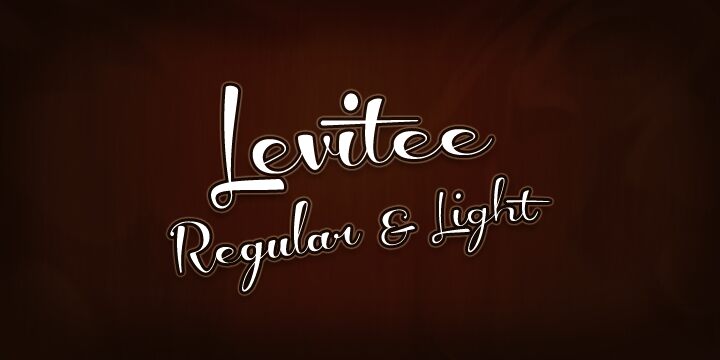
Levitee by Måns Grebäck is a free calligraphic script with dramatic changes from broad, ink-heavy curves to extremely fine hairlines. Its oversized loops and unexpected joins make the lettering feel theatrical.
Fashion labels and beauty brands can use its couture-like forms for logos and packaging, where the sharp contrast suggests luxury without looking traditional. The same flamboyant sweep suits album artwork and event invitations with a glamorous or slightly eccentric direction. It is most convincing in fashion branding, where the letters can function almost like a highly distinctive custom signature.